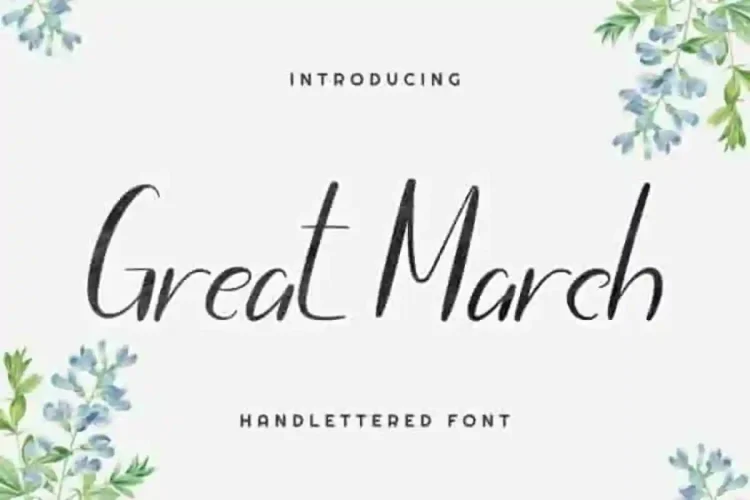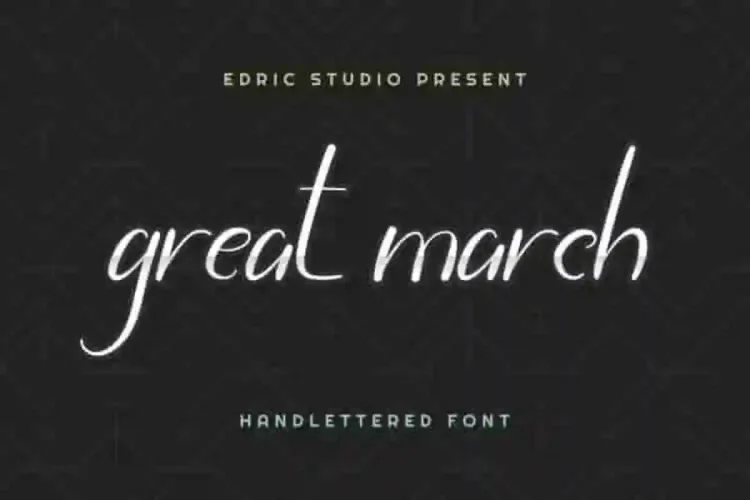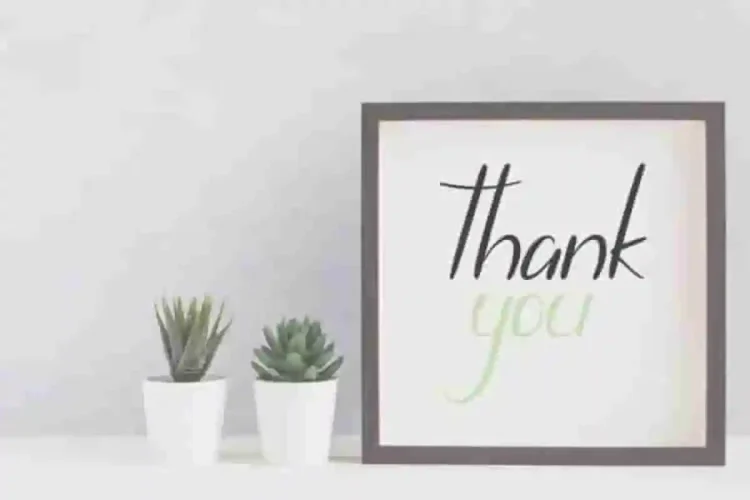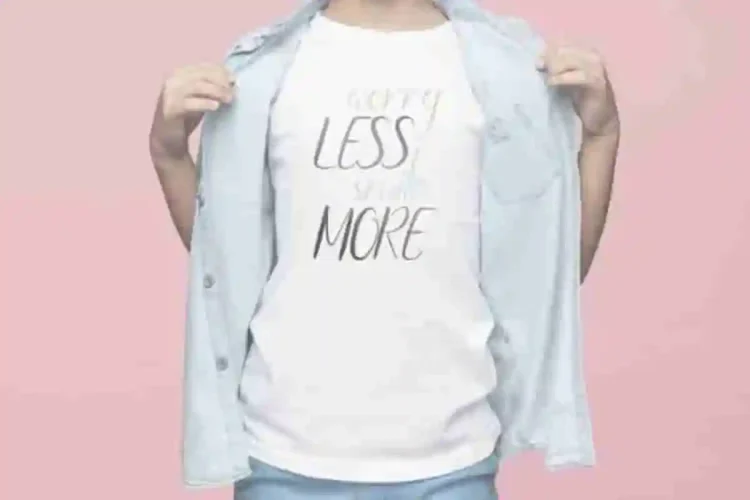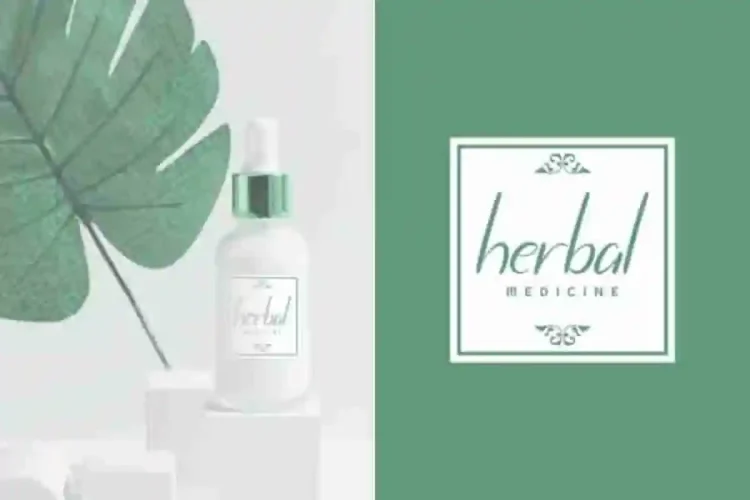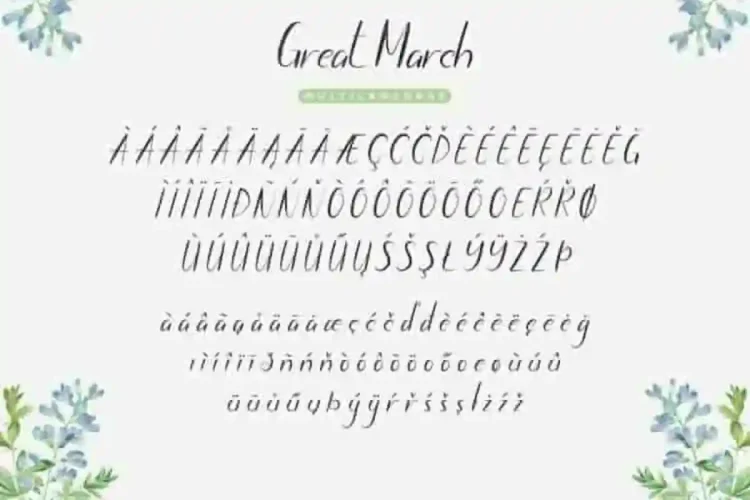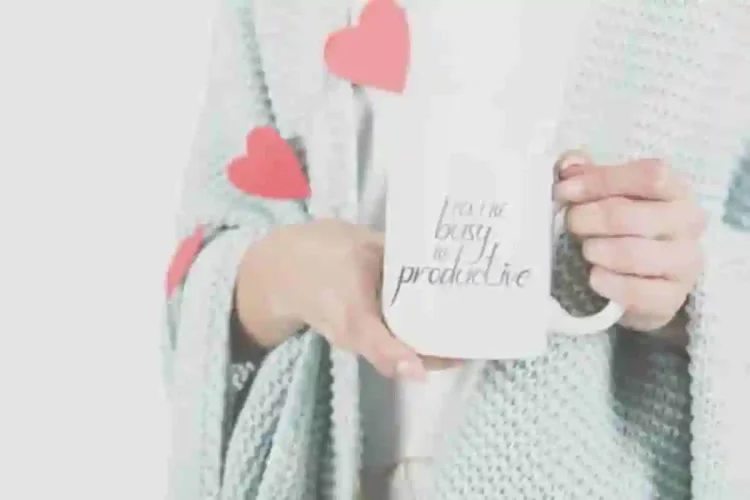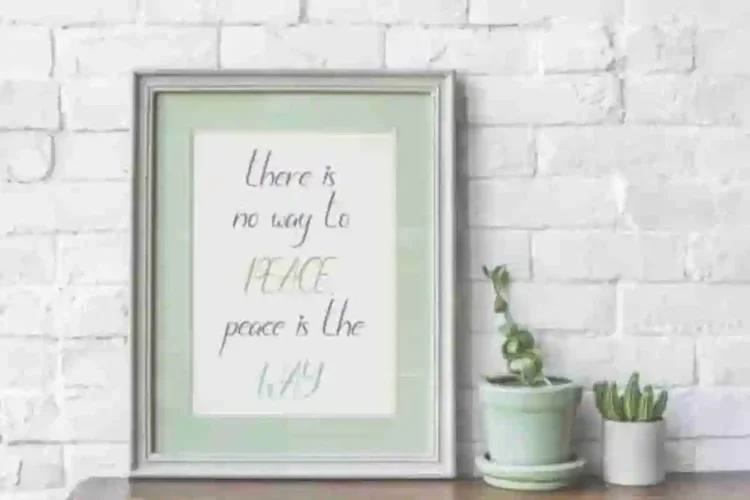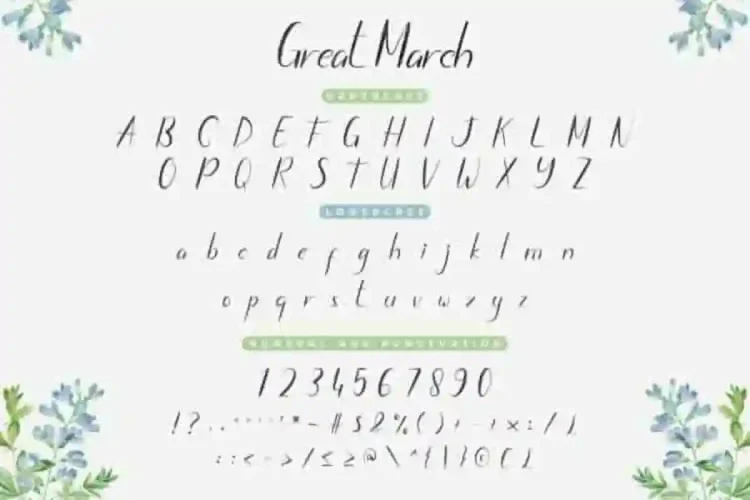
Great March Calligraphy Font
Introducing our newest font from our lovely artist :  Great March Calligraphy Font
This is a Calligraphy font, handcrafted from our Studio here in, Indonesia. The artists/designers of this beautiful tyeface is Widiyanti and Suci.
Great March Calligraphy Font is an exclusive signature script typeface with brush style. This font has a stunning characters set, perfectly managed with well spaced and kerning. The theme style of this font will elegant,  vintage, stylish, sophisticated and classic brush calligraphic style.
Great March Calligraphy Font will be great for any projects including : branding, logo, stationery, business card, signage, flyer, brochure etc. Almost all industries will be match for this typeface: wedding, events,  florist, gardening, makeup artist, travel, hotel, musician etc.